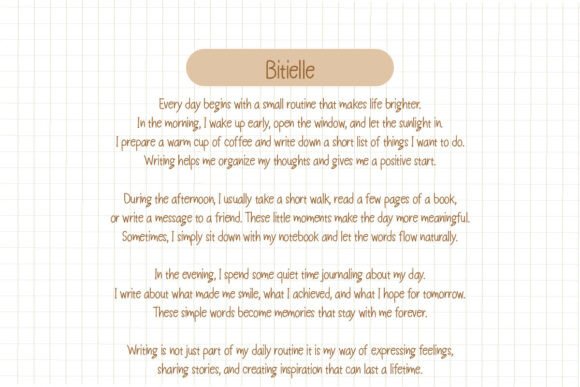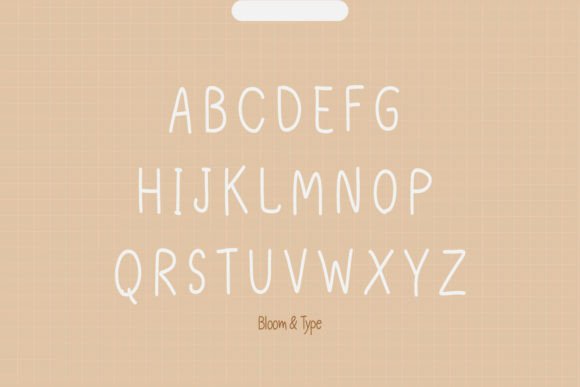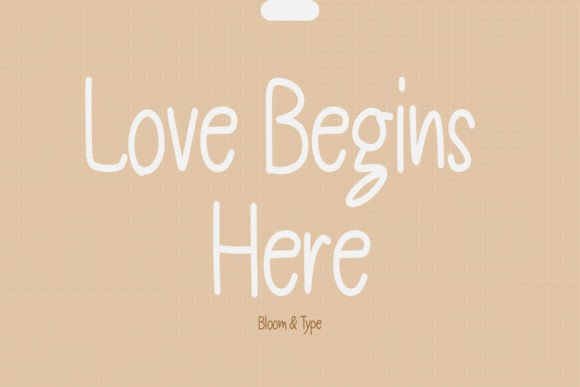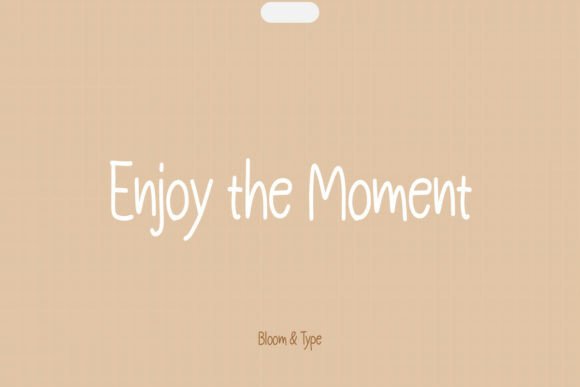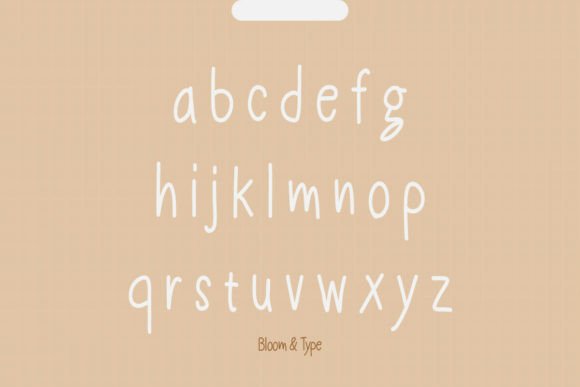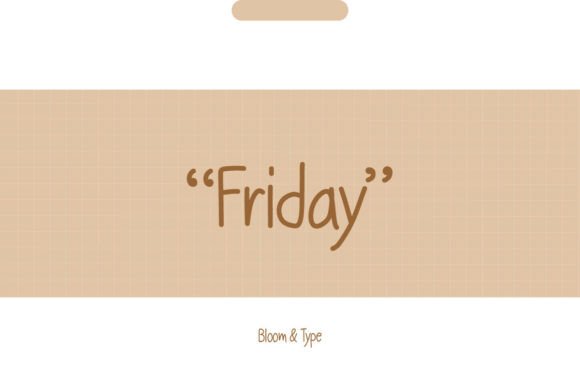
Introducing Bitielle Font: A Charming Handwritten Style for Modern Designs
In the world of typography, a font can make all the difference in the aesthetic and feel of a design. For those seeking a blend of simplicity, warmth, and a friendly vibe, the Bitielle font stands out as an exceptional choice. Bitielle is a charming handwritten font that effortlessly merges clean lines with a soft, inviting appearance, making it perfect for a wide range of design needs.
The Unique Characteristics of Bitielle
Bitielle’s appeal lies in its smooth curves and slightly irregular strokes, which together create a natural, handwritten look. This font exudes a sense of relaxation and approachability, making it ideal for designers looking to add a human touch to their work. The letters in Bitielle are clean, rounded, and easy to read, ensuring that your message is conveyed clearly and effectively, whether you’re working on short phrases or longer texts.
One of the standout features of Bitielle is its ability to keep designs looking soft and visually pleasing. This makes it an excellent choice for a variety of applications, from casual social media content to more formal branding and logos. The font’s smooth and rounded style, combined with its clean and readable appearance, ensures that your designs will always look neat and modern.
Inspiration and Applications
Bitielle draws inspiration from casual notes and positive expressions, imbuing it with a gentle personality that can enhance any design. It’s particularly well-suited for projects that require a personal touch without sacrificing clarity or professionalism. Whether you’re creating branding materials, social media posts, quotes, or any other type of content, Bitielle can add a unique warmth and character to your work.
Key Features of Bitielle
- Uppercase & Lowercase Letters: Bitielle includes a full set of uppercase and lowercase letters, providing flexibility and variety for your designs.
- Numbers & Punctuation: In addition to letters, Bitielle also includes numbers and punctuation marks, making it a comprehensive font solution for most design needs.
- Multilingual Support: One of the font’s most significant advantages is its multilingual support. This feature makes Bitielle suitable for use across different languages, expanding its utility for global design projects.
Why Choose Bitielle?
For designers and crafters looking for a font that combines the personal touch of handwriting with the clarity and professionalism of modern typography, Bitielle is an excellent choice. Its smooth, rounded style and clean lines make it easy to read and visually appealing. Additionally, its multilingual support and comprehensive character set make it a versatile tool for designers working on international projects or those who need to create content in multiple languages.
Perfect for Various Design Needs
Bitielle’s versatility makes it suitable for a wide range of design applications. Here are some of the areas where Bitielle truly shines:
- Branding & Logos: Add a personal and approachable feel to your brand identity with Bitielle.
- Social Media Content: Stand out on social media platforms with Bitielle’s unique and engaging style.
- Quotes & Inspiration: Bring warmth and personality to your inspirational quotes and messages.
In conclusion, Bitielle is more than just a font – it’s a design tool that can elevate your work with its charming handwritten style, smooth curves, and friendly vibe. Whether you’re a professional designer or a crafter, Bitielle offers the perfect blend of simplicity, warmth, and modernity to make your designs shine.